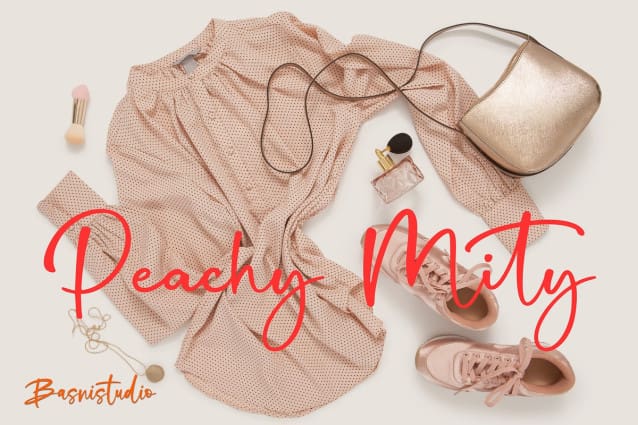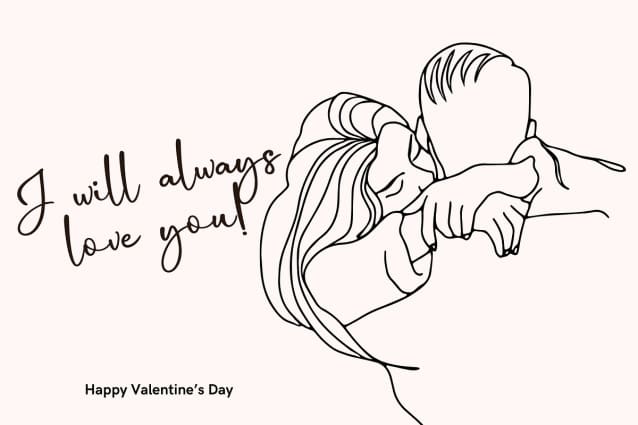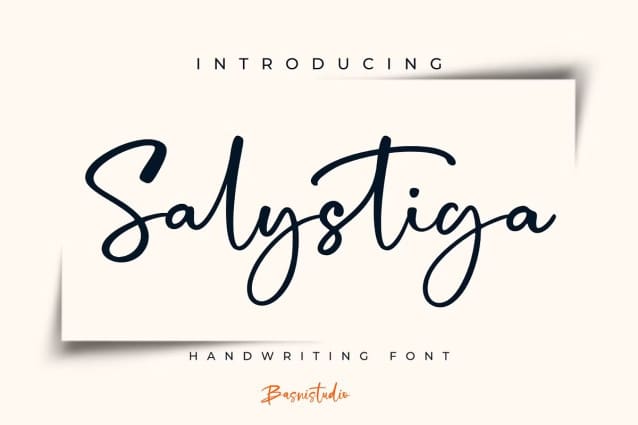
Salystiga Handwriting Fontt
Salystiga Handwriting Fontt, made by Naturaly Handwriting & Authentic Style. This Font is perfect for an magazine, clothes, quotes, and so much more. This font is PUA encoded, which means you can access all of the glyphs.